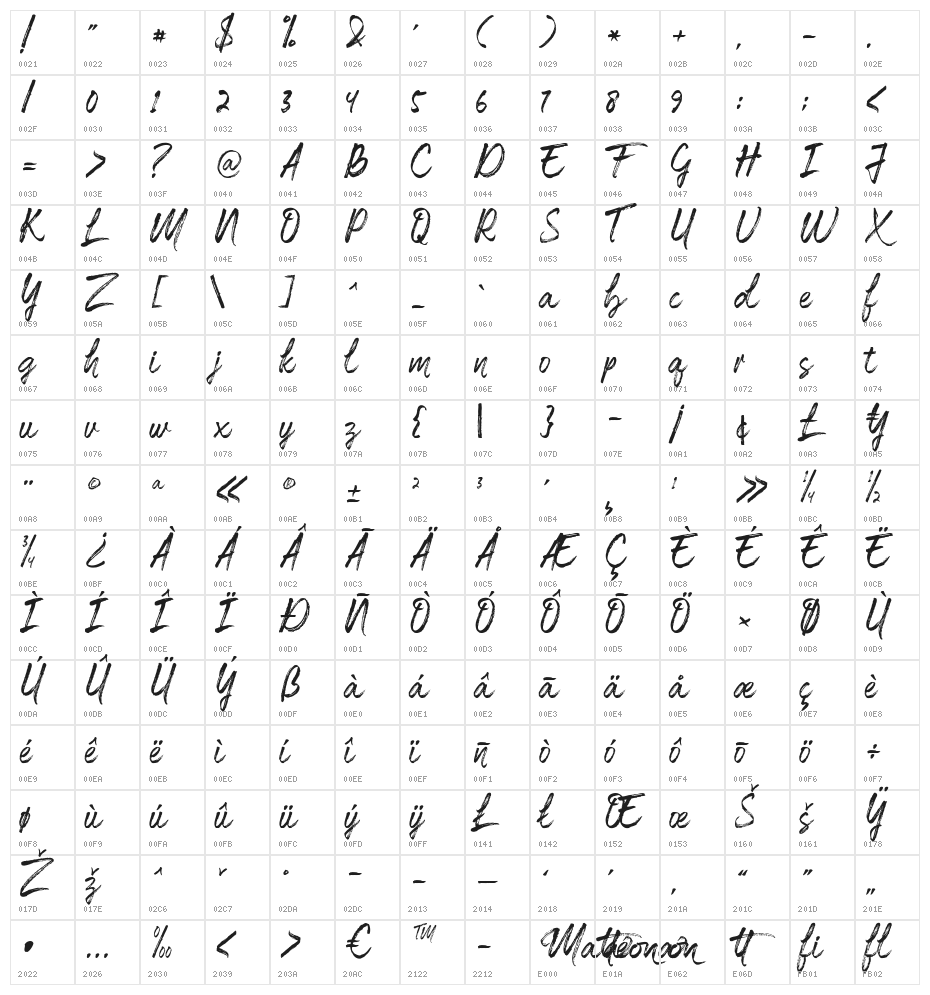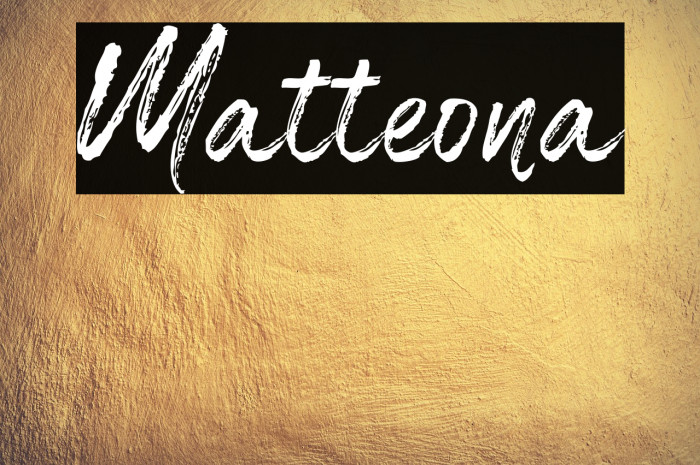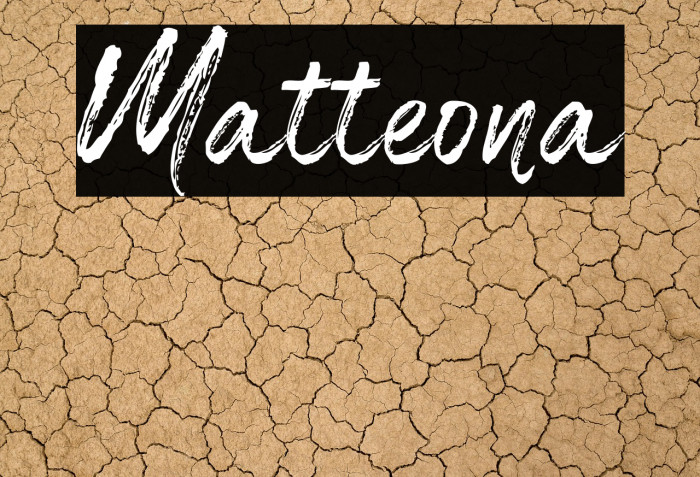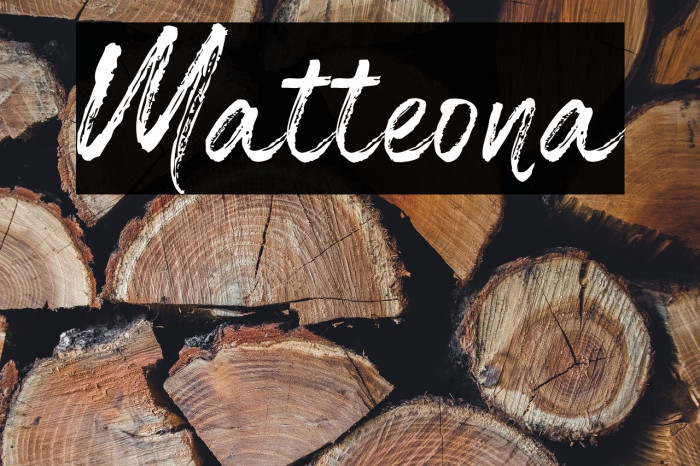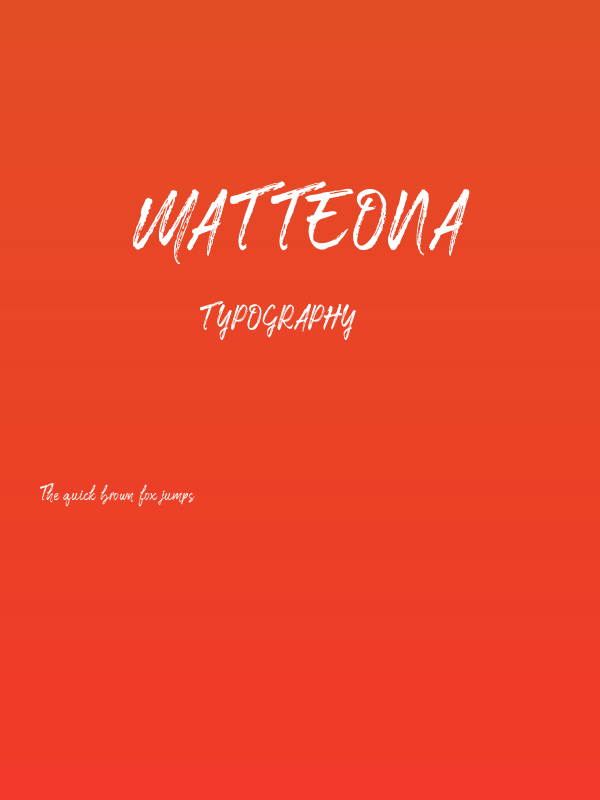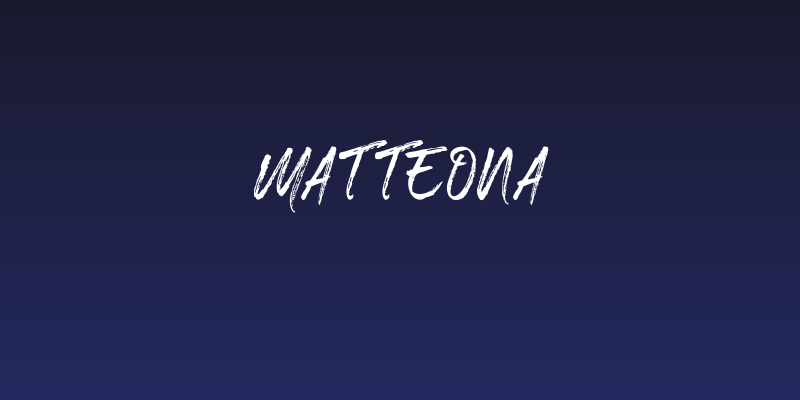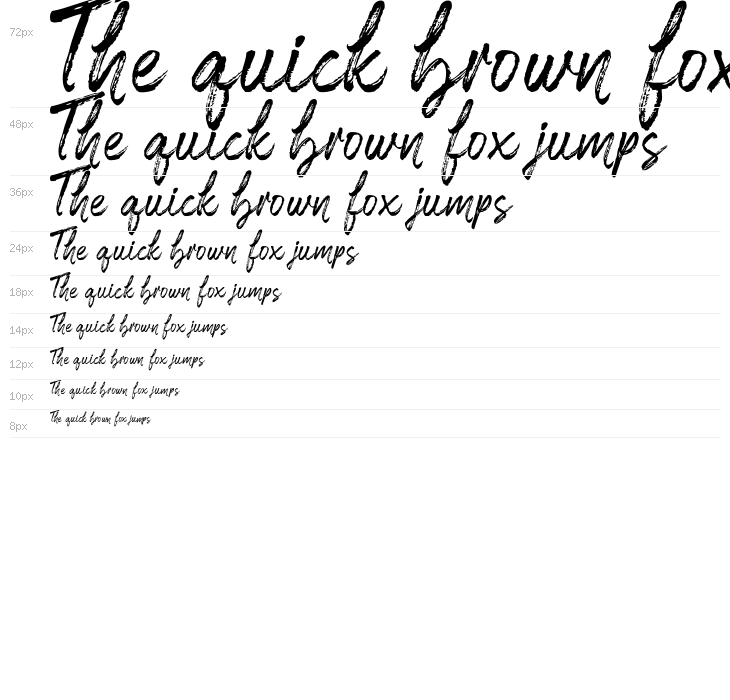
Matteona Font
Matteona Description
This font exhibits a dynamic and expressive handwritten style, characterized by its bold, brush-like strokes that convey a sense of energy and movement. The letters are slightly slanted, enhancing the casual and informal feel. The uppercase and lowercase letters maintain a consistent style, with some variation in stroke thickness that adds to the font's lively appearance. The numerals and special characters are crafted with the same brush-like texture, ensuring a cohesive look across all elements. This font is ideal for projects that require a personal touch or a creative flair.
| Use Case | Logos, Headlines, Posters |
| Proposed Projects | Ideal for branding, posters, invitations, and any design requiring a personal, artistic touch. |